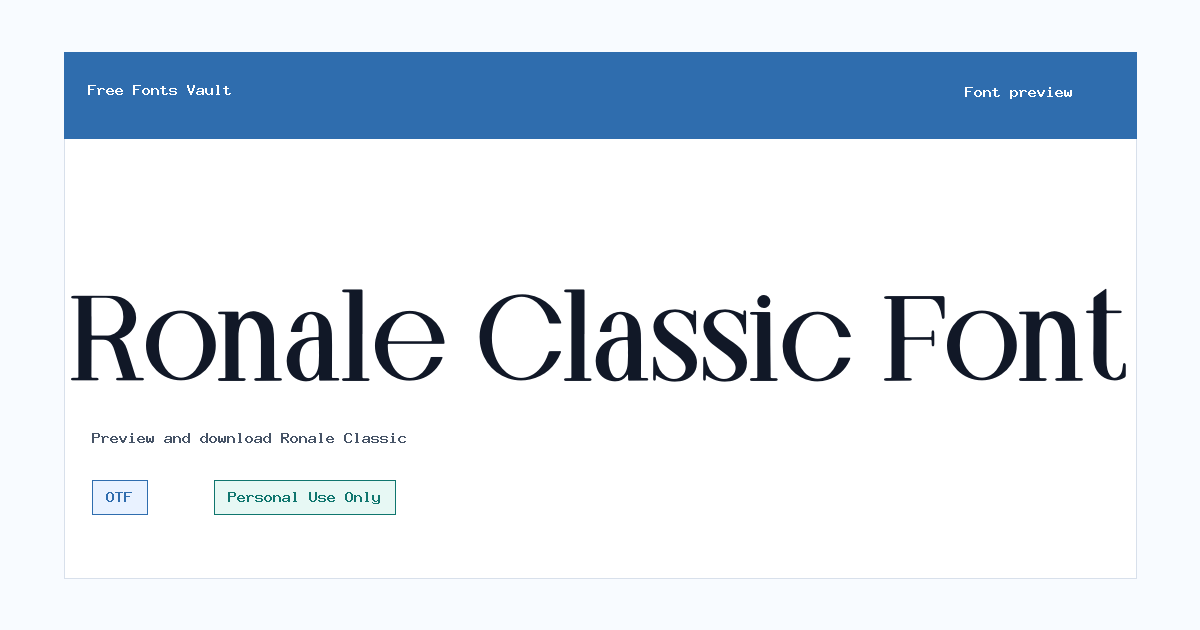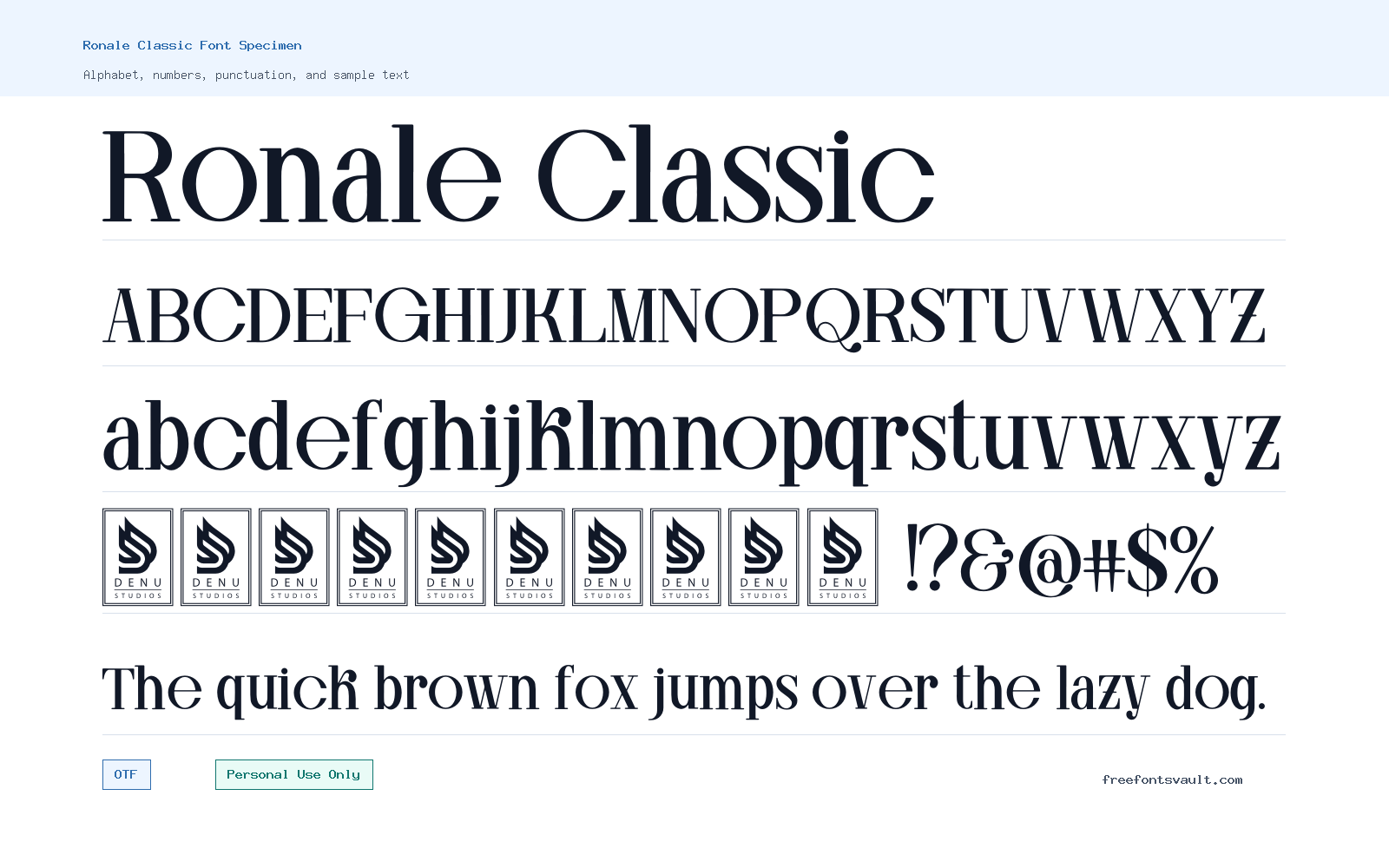
Ronale Classic
- Designer Dede Nugraha
Ronale Classic is a serif font with a classic, polished look suited to short display text, branding drafts, invitations, headings, and decorative typography tests.
Ronale Classic works best when you want a serif style that feels formal without becoming hard to read at display sizes. Its regular style gives you a straightforward starting point for titles, name designs, quote graphics, packaging mockups, and social media layouts. Because only the regular 400-weight OTF variant is listed, it is better to treat this as a display choice rather than a full text family with multiple weights for large editorial systems.
Use the preview tool to test the exact words you plan to design with, especially names, initials, punctuation, and mixed uppercase/lowercase lines. Serif fonts can look very different depending on the letters used, so check spacing, curves, and legibility before downloading. Ronale Classic should be most useful for short phrases, elegant headings, and design mockups. For body text, small captions, long paragraphs, or interface labels, pair it with a simpler sans serif or a more complete reading font.
- Regular 400-weight serif style for display typography and short text previews
- Logo drafts, wedding stationery, invitations, quote graphics, and name-based designs
- Headlines, posters, packaging mockups, social media graphics, and editorial-style titles
What style of font is Ronale Classic?
Ronale Classic is listed as a serif font in a regular 400-weight style. It is best tested for headings, names, decorative layouts, and short display text.
Is Ronale Classic good for long paragraphs?
It is safer to use Ronale Classic for short display text. For long paragraphs, test readability carefully or pair it with a simpler text font.